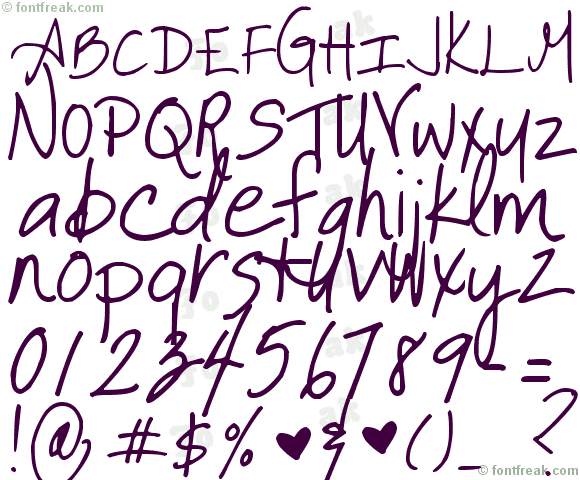
The "It Ain't Rocket Science" font, designed by Kimberly Geswein in 2007, falls into the category of handwritten typefaces. This unique font captures an informal, yet playful essence, making it an excellent choice for various creative projects. Its stroke weight varies, lending a dynamic feel that mimics the natural flow of handwriting. The casual curves and slightly uneven spacing add to its charm, making it approachable and engaging.
This font shines in several specific use cases. It is perfect for wedding invitations, where its whimsical style can convey a sense of joy and celebration. Additionally, it works well for children's book covers, giving an inviting look that appeals to young readers. Restaurant menus can benefit from its friendly appearance, making the dining experience feel more relaxed and welcoming. For social media graphics, this font can add a personal touch that resonates with followers, while also being suitable for greeting cards and personal notes that require a warm, human touch.
Target audiences for "It Ain't Rocket Science" include graphic designers looking for a unique handwritten style, small business owners wanting to elevate their branding, and content creators who aim to add personality to their projects. The font is also a great fit for anyone seeking to infuse their designs with a light-hearted vibe.
What sets the "It Ain't Rocket Science" font apart is its ability to blend simplicity with character. This font embodies a sense of fun and creativity, making it a versatile choice for those looking to make a statement without overwhelming their audience. For those interested, the "It Ain't Rocket Science font free download" is a fantastic opportunity to enhance your design toolkit with a touch of whimsy.